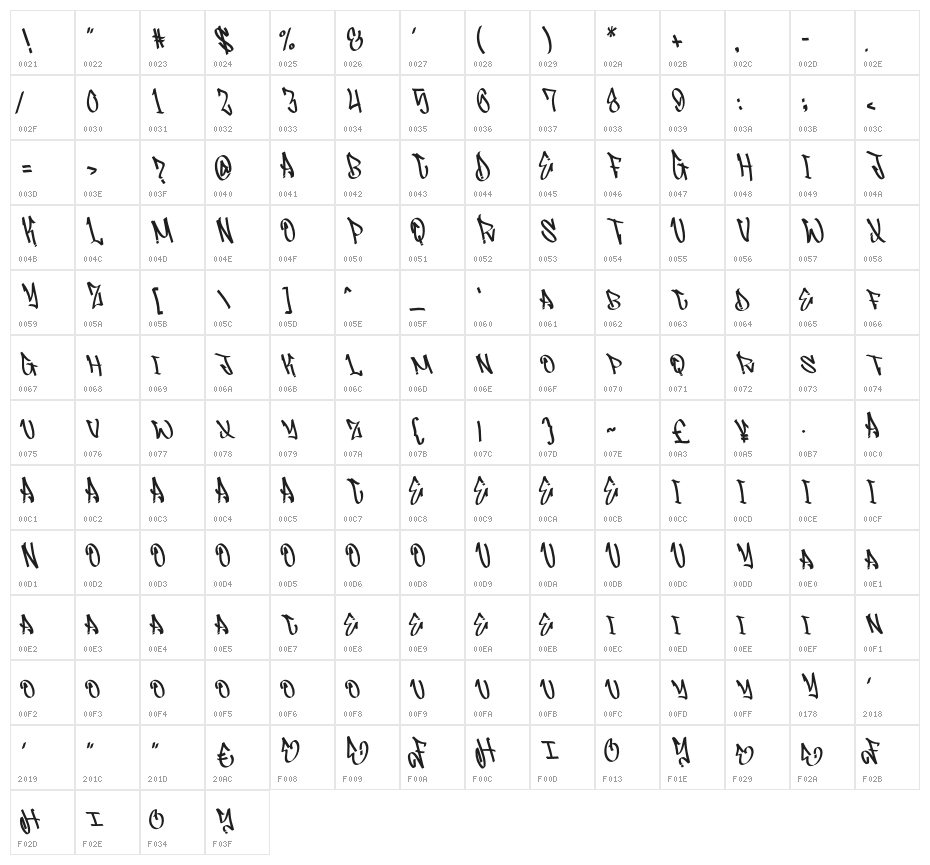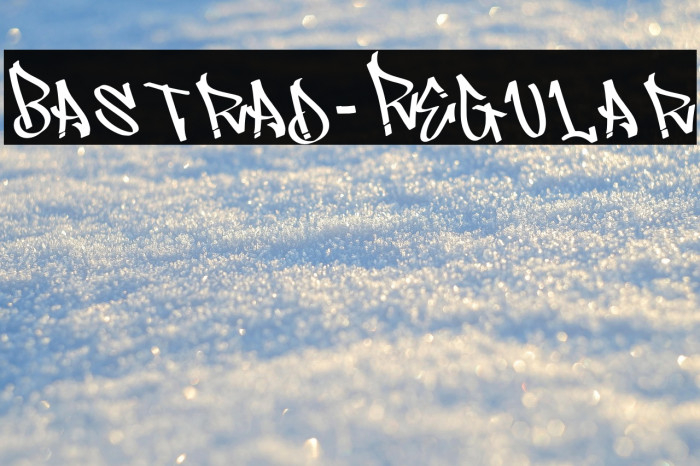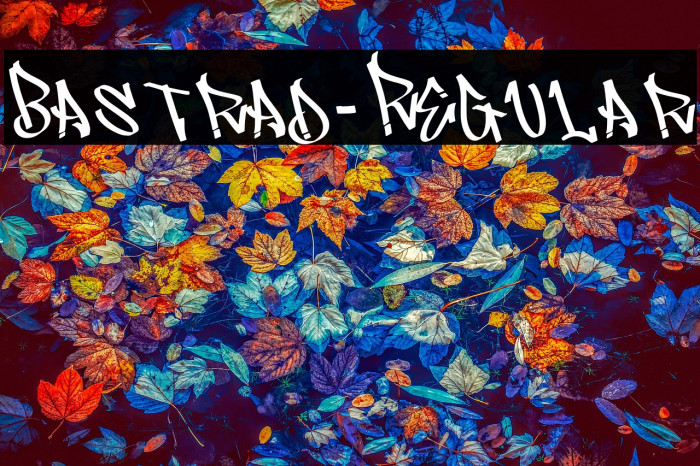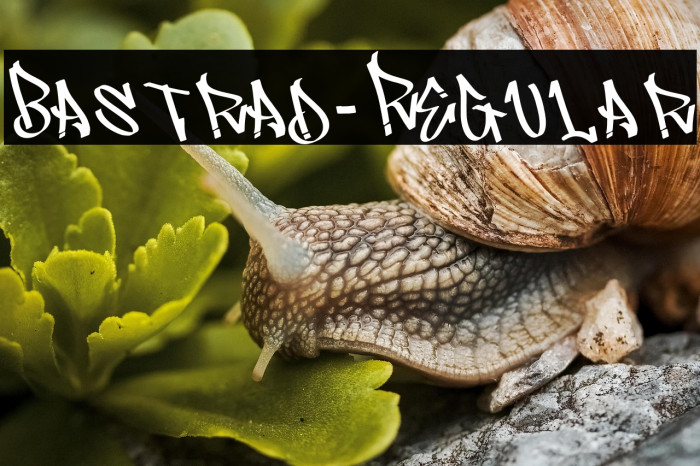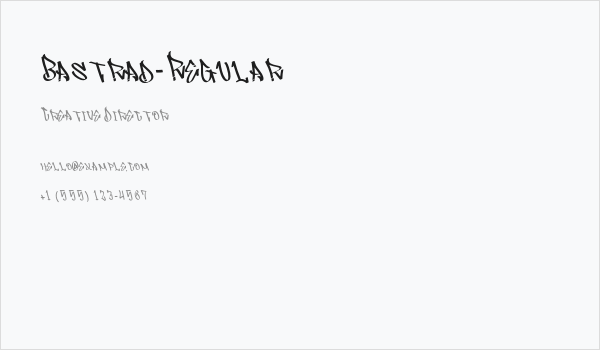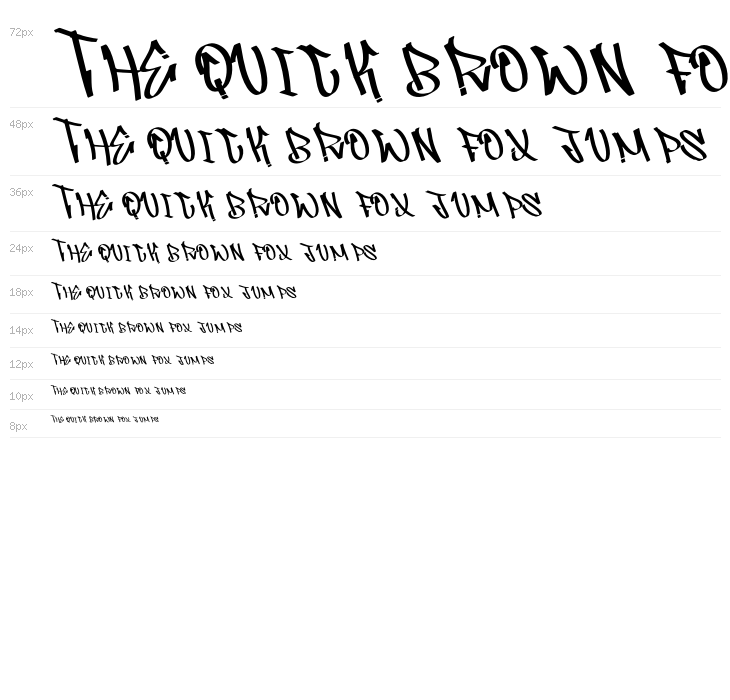
Bastrad-Regular Font
Bastrad-Regular Description
This font features a bold, edgy style with sharp angles and a graffiti-like appearance. The characters are dynamic and expressive, with a sense of movement and energy. The uppercase and lowercase letters maintain a consistent style, while the numbers and special characters complement the overall design. The font's unique aesthetic makes it stand out, offering a modern twist on traditional letterforms. Its bold strokes and distinctive shapes make it ideal for projects that require a strong visual impact.
| Overall Style | Modern, Urban, Edgy |
| Proposed Projects | Ideal for street art designs, music album covers, urban-themed posters, and edgy branding projects. |